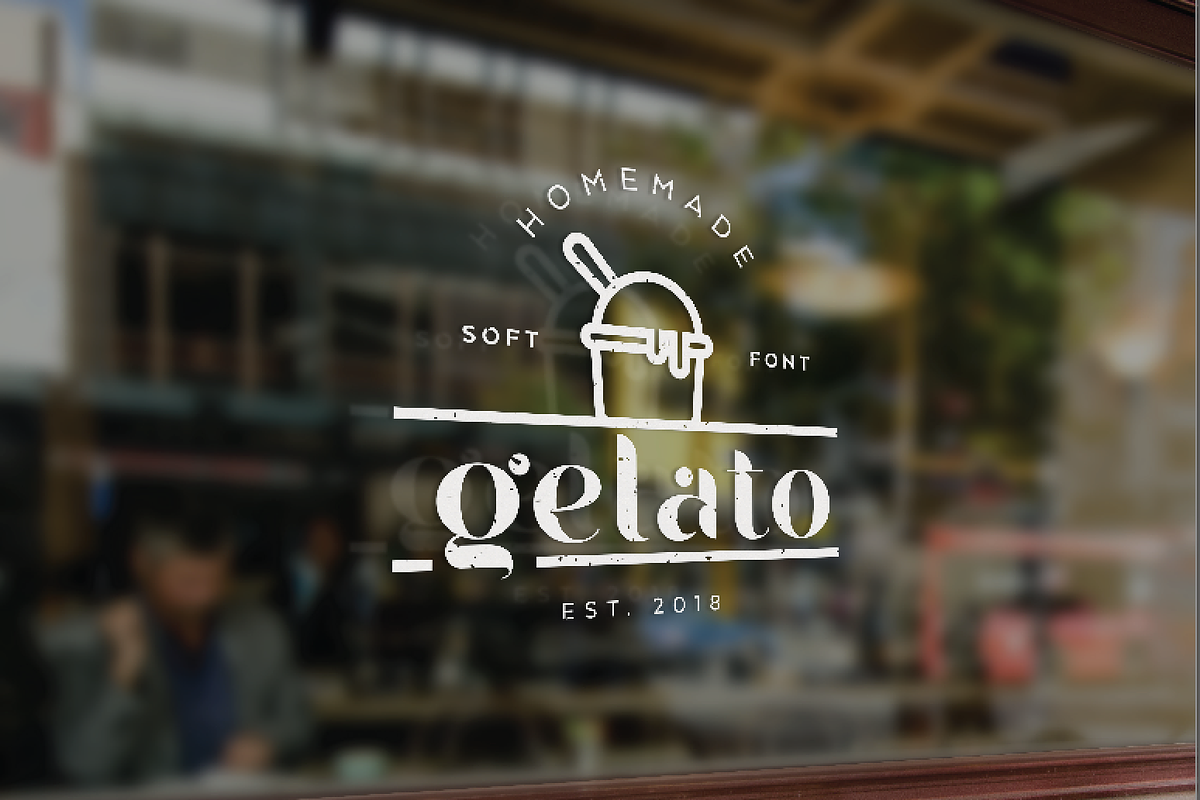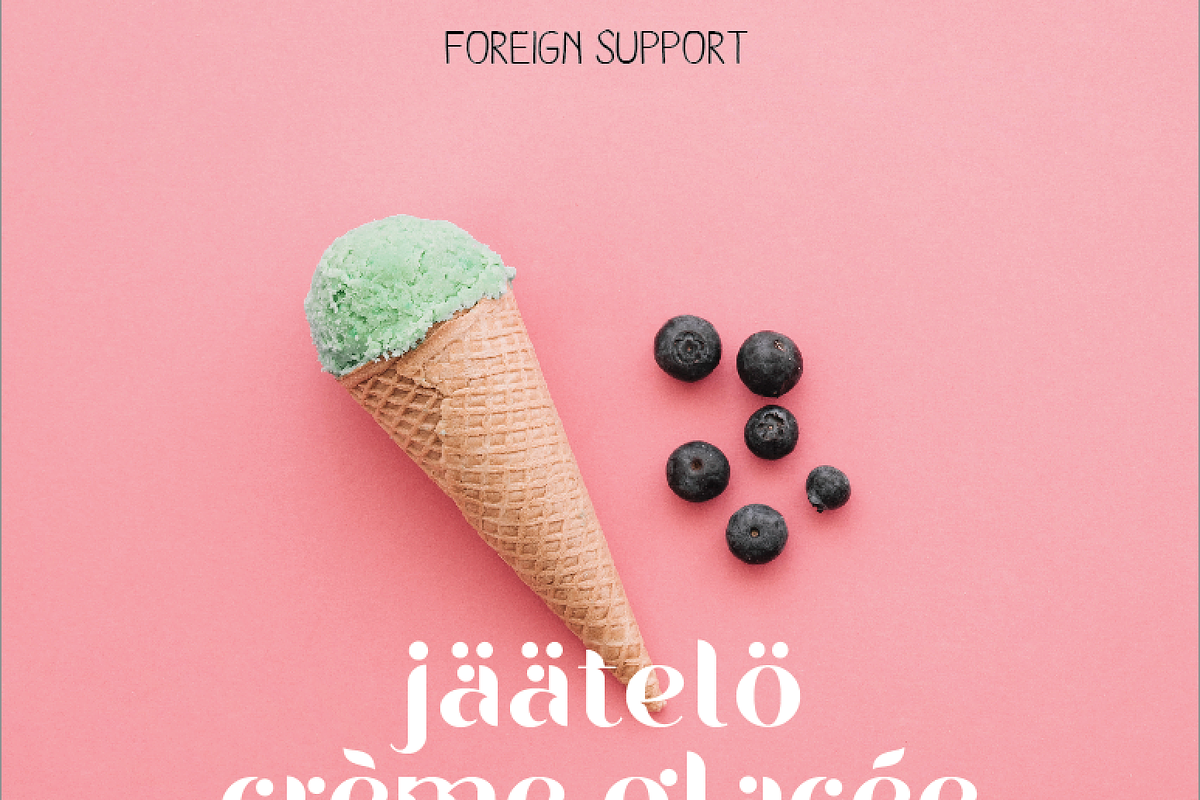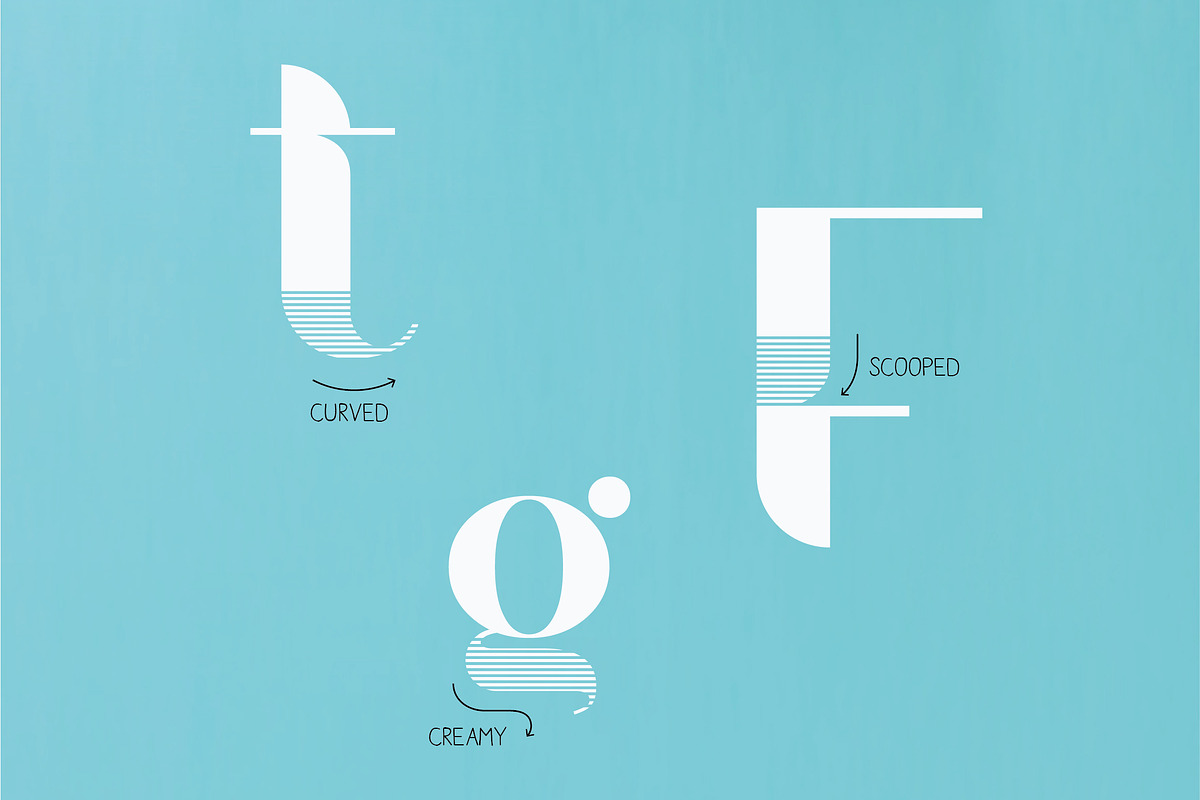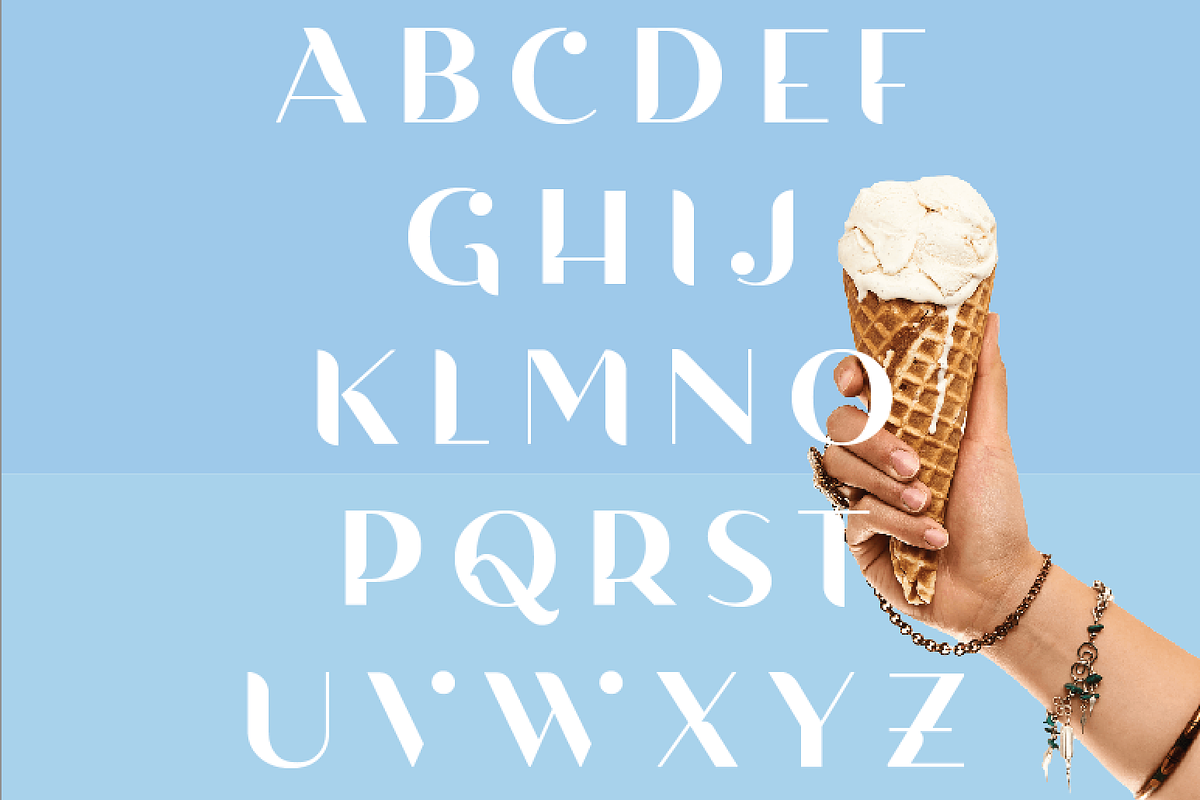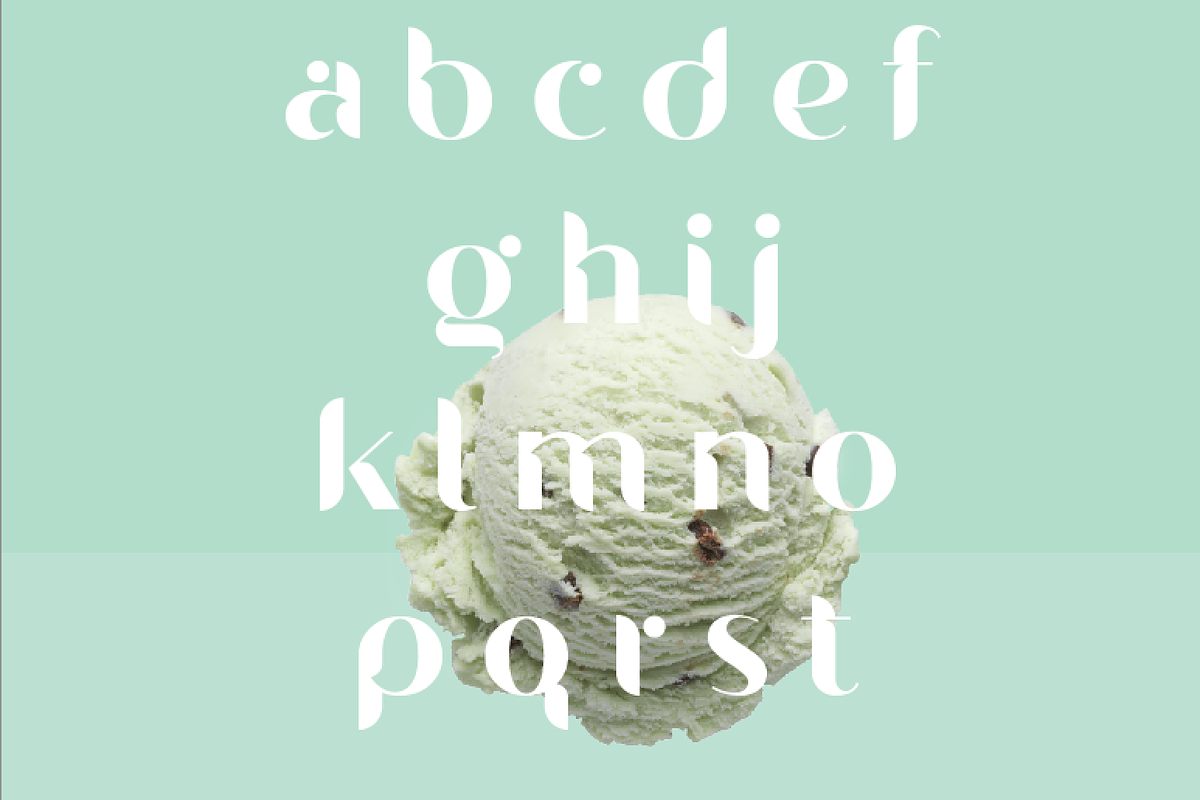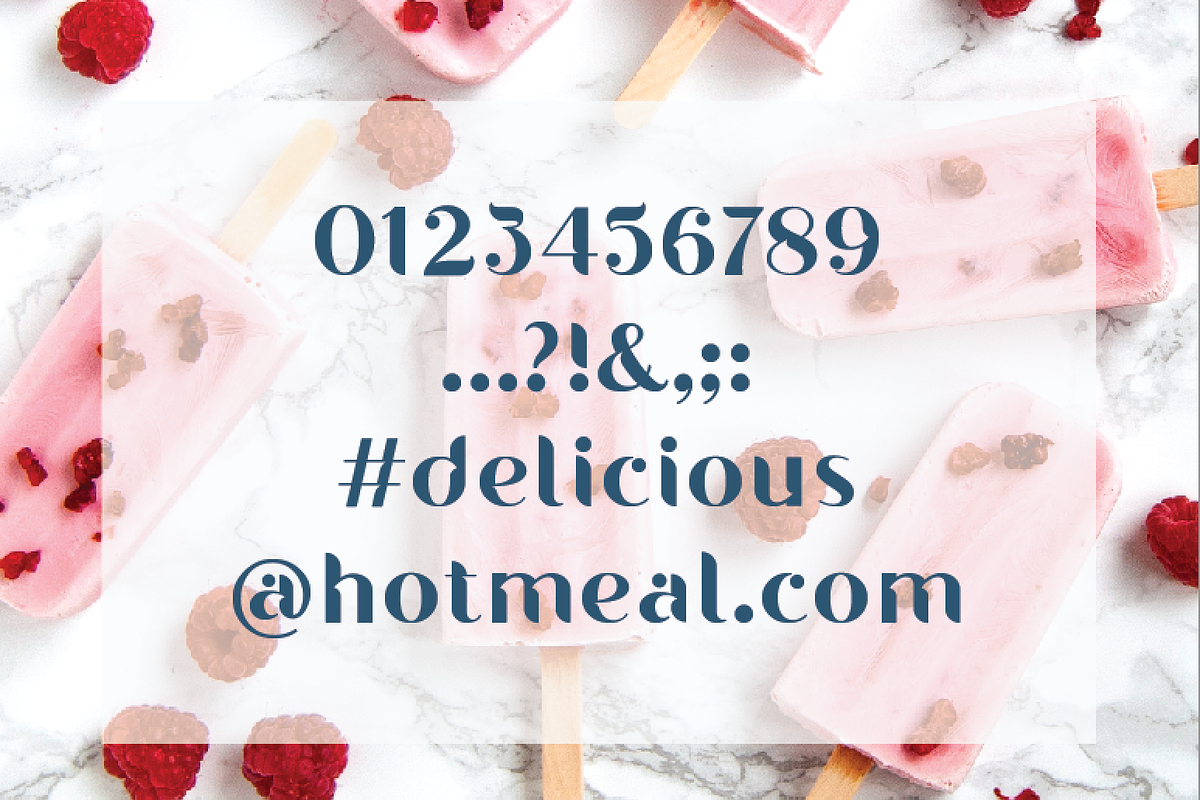
Gelato Soft font
Soft, friendly and full of personality!
Why Gelato Soft font is worth a look
Gelato Soft font by Pedro Azedo fits naturally into Branding, posters, packaging, typography.